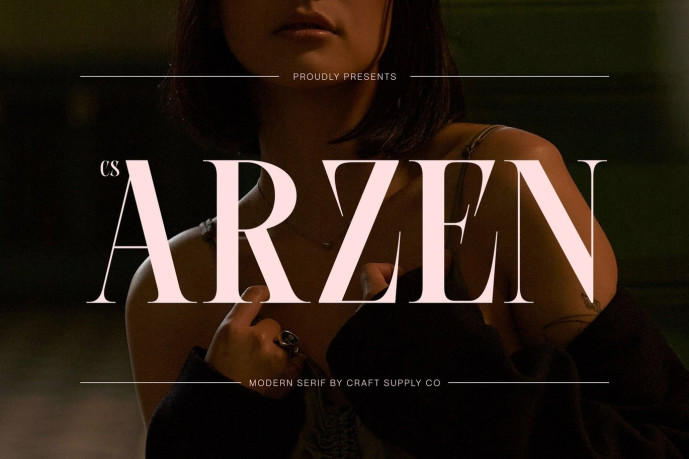
Arzen – Modern Serif Font
CS Arzen – Modern Serif Font: Where Slender Elegance Meets Contemporary Refinement Slim Proportions with Graceful Elongated Serifs This is a modern serif font designed with slim proportions and elegant elongated serifs, creating a refined visual identity that feels graceful, sophisticated, and contemporary. Its slender letterforms bring a sense of lightness and precision, while the extended serif details add a luxurious touch that enhances its overall elegance.
Low Contrast with Clean Contemporary Design This font delivers a smooth and balanced appearance that emphasizes clarity and refinement. Its clean structure modernizes traditional serif typography, resulting in a timeless aesthetic that feels both professional and approachable. This understated contrast allows the font to maintain exceptional readability while conveying quiet luxury.
Elegant Expression with Professional Appeal This font communicates sophistication through its minimalist proportions and carefully crafted details. Its refined silhouette creates a polished impression suitable for premium visual identities, while its balanced construction ensures versatility across print and digital applications. The result is typography that feels elegant, confident, and effortlessly high-end.
Perfect for Luxury Products and High-End Design Perfect for luxury brand identities, fashion and beauty branding, premium packaging, editorial layouts, magazine covers, hotel and hospitality branding, invitations, product labels, logos, and other high-end design projects. Its graceful serif forms make it ideal for typography that seeks to communicate prestige, professionalism, and timeless elegance.